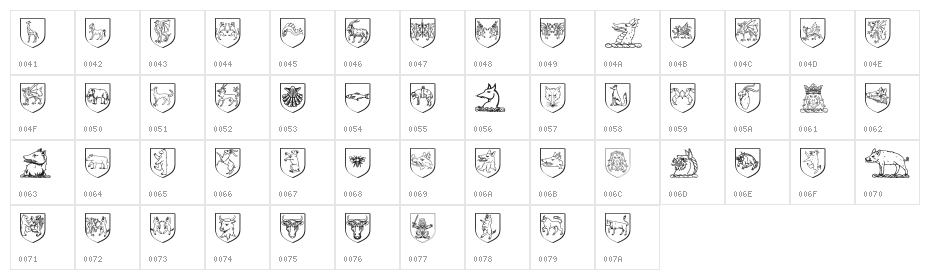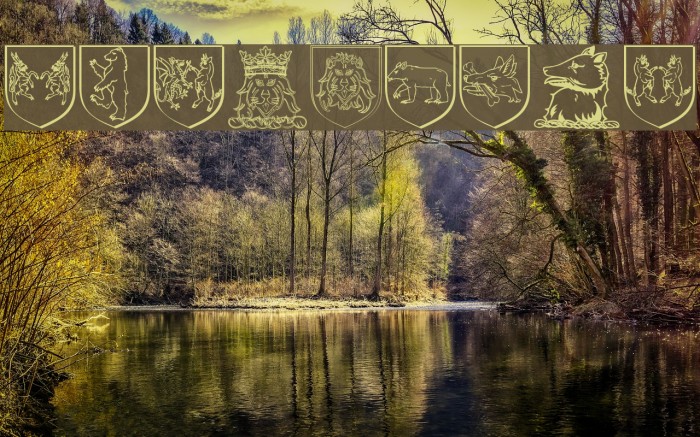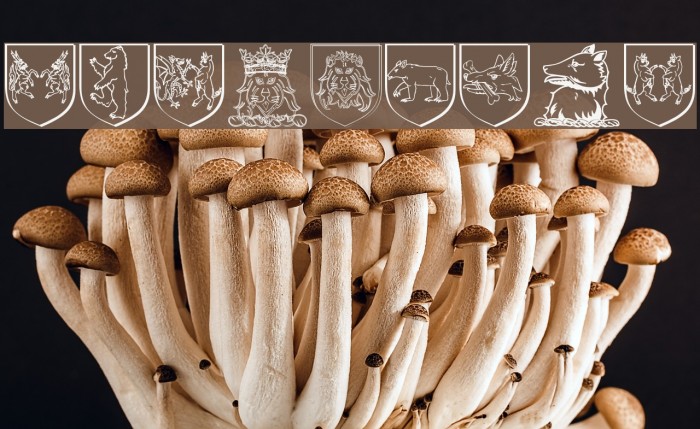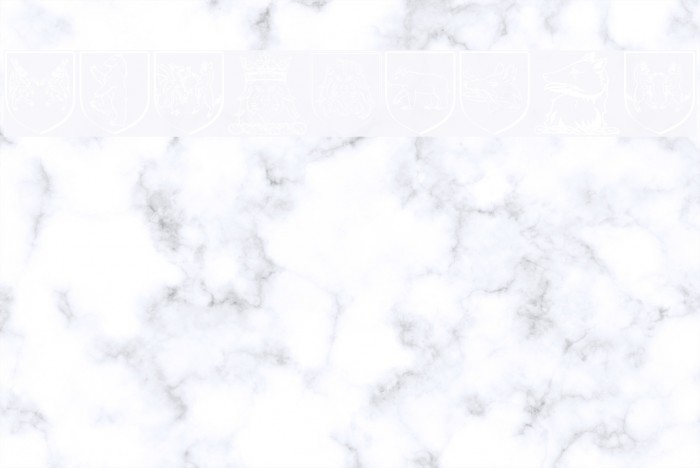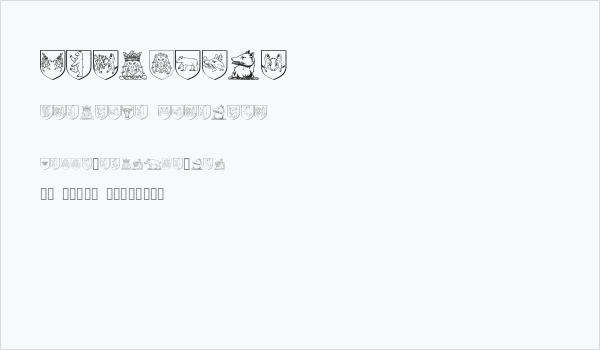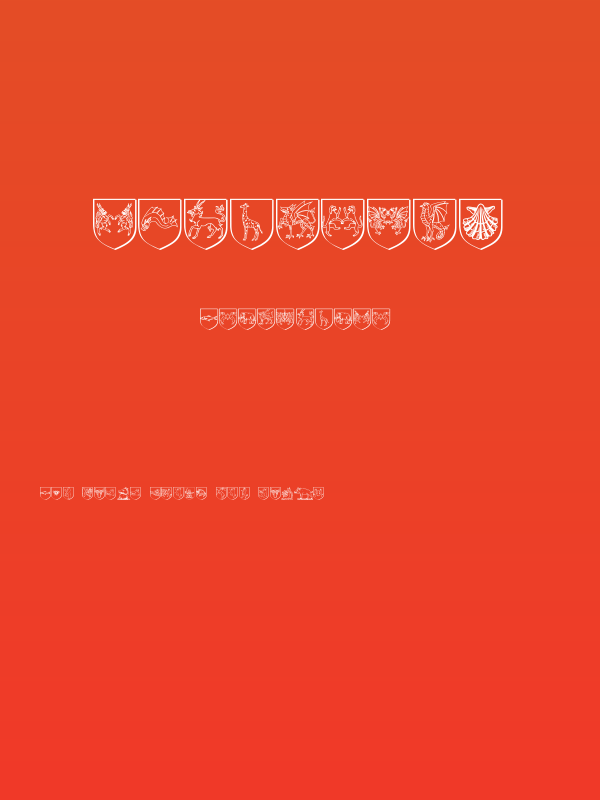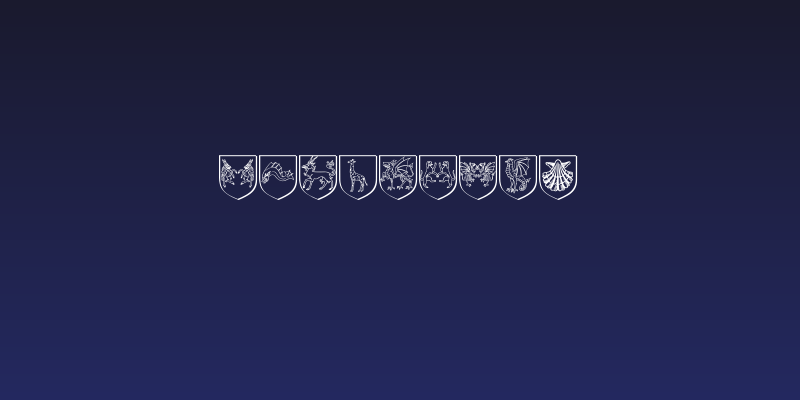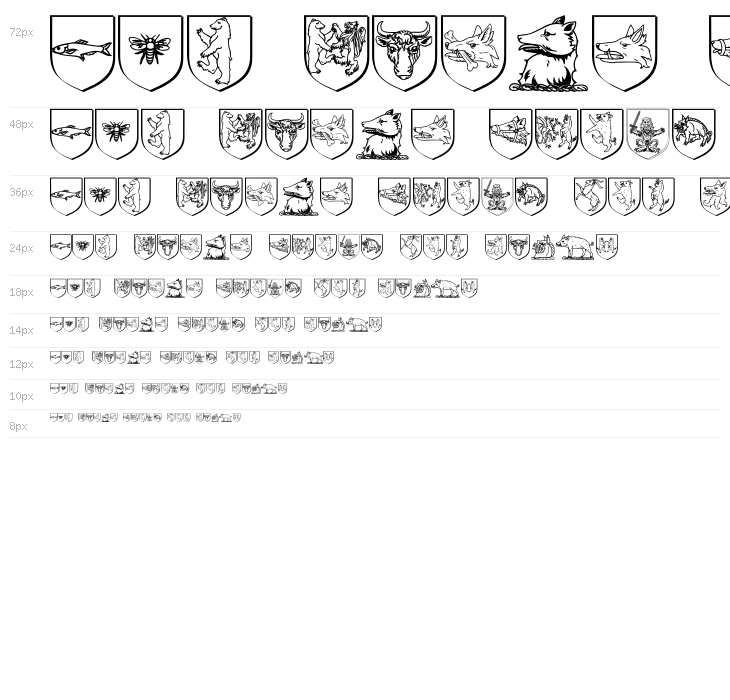
Heraldics Font
Heraldics Description
A decorative display typeface featuring heraldic shield icons with intricate line art illustrations of animals, mythical creatures, and symbols. Each character is represented by a unique shield design, evoking a medieval or historical aesthetic.
| Overall Style | Vintage, Decorative, Medieval |
| Use Case | Logos, Posters, Themed Invitations, Book Covers |
| Proposed Projects | Coat of arms designs, fantasy book covers, medieval-themed posters, board games, invitations, and branding for historical or fantasy events. |